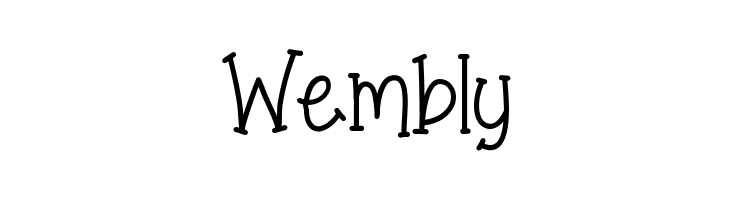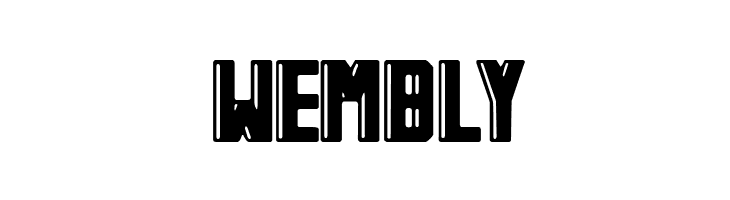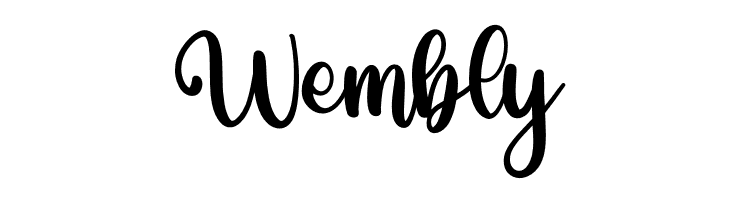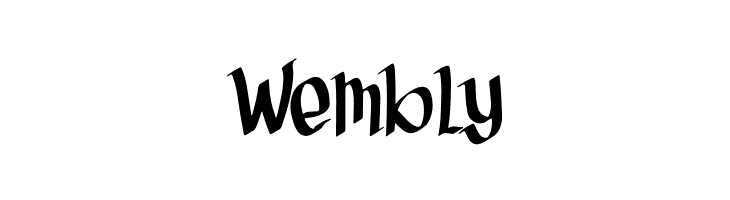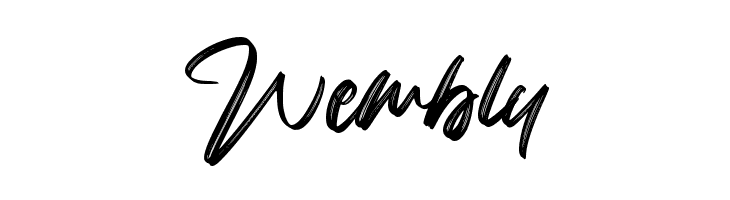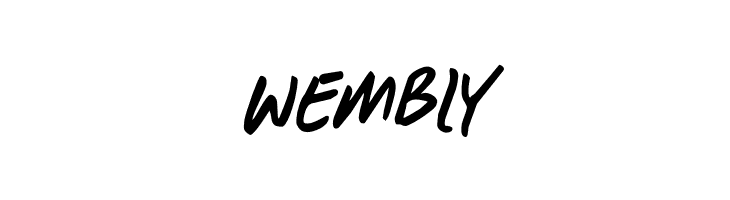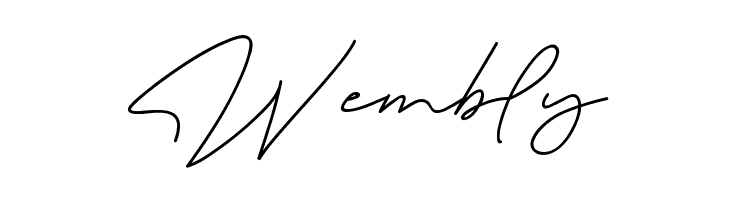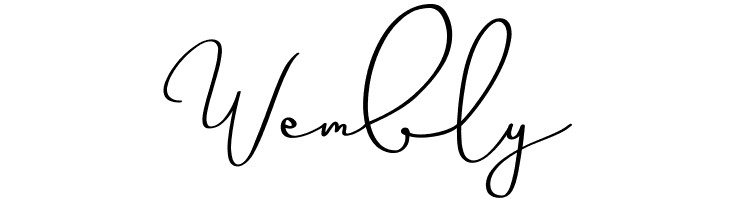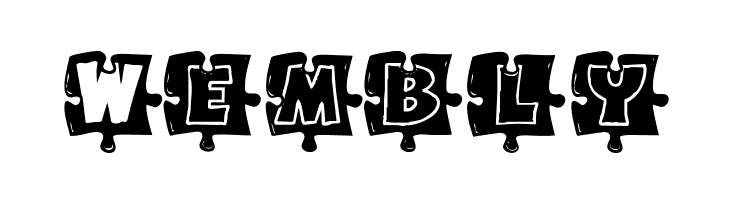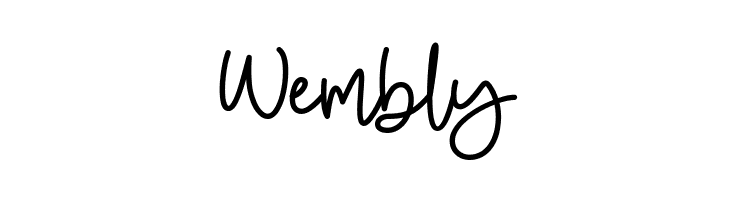
Mister October Font
A bold, brush-style script font with dynamic strokes and artistic flair.
Mister Pixel 16 pt - Old Style Figure Font
A pixelated, retro-style font with a blocky, digital appearance.
Mister Pixel 16 pt - Regular Font
A pixelated, retro-style font with a uniform blocky appearance.
Mister Pixel 16 pt - Small Caps Font
A pixelated, retro-style font with a digital, nostalgic aesthetic.
Mister Pixel 16 pt - ToolsOne Font
A pixelated, retro-style font with a blocky, grid-like appearance.
Mister Pumpkins Aged Font
A bold, distressed font with a vintage, textured appearance.
Mister Rocky Font
A bold, playful font with a unique striped pattern and cartoonish style.
Mister Roman Font
A playful, handwritten-style font with elegant, flowing lines.
Mister sally Personal Use Font
A dynamic and elegant script font with fluid, connected strokes.
Mister Sinatra Regular Font
A bold, serif font with strong strokes and a classic, authoritative style.
Mister Sinatra Slim Font
A bold serif font with a classic yet modern style, featuring strong serifs and consistent strokes.
Mister Sinister Font
A bold, edgy font with sharp, jagged edges and a rebellious appearance.
Mister Spicy Dos Font
A playful, handwritten font with a casual and dynamic style.
Mister Stars Font
A playful, rounded font with bold, smooth curves and consistent thickness.
Mister Summer Font
A playful, handwritten font with smooth, flowing lines and a casual style.
mister tate Font
A whimsical serif font with playful, exaggerated serifs and dynamic strokes.